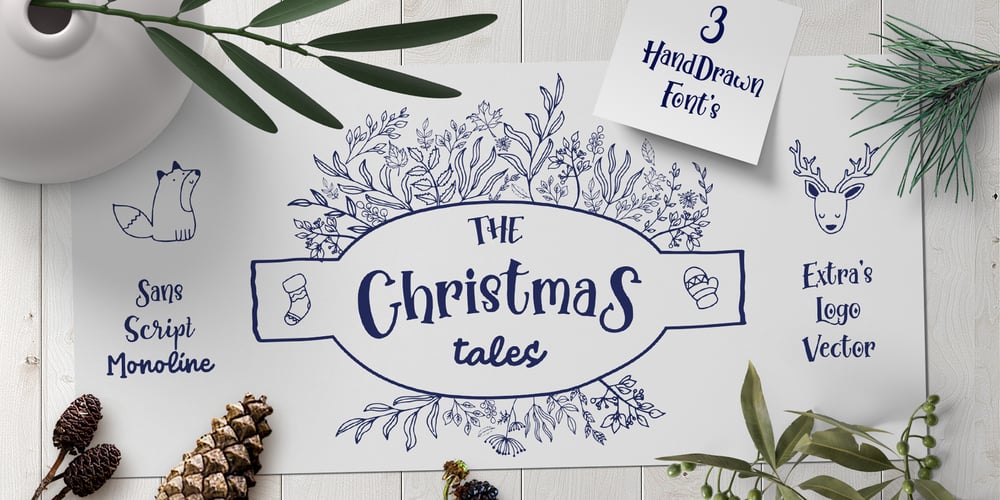
Winter Tales Font Family was designed by Muhammad Ardiansyah and published by Hart Foundry. Winter Tales contains 3 styles and family package options. Introducing Winter Tales Font PackWinter Tales is a new handwritten font pack from us, this font is really new and fresh. With four different font characters, you can play your imagination in designing. This font is very easy to use and really playful. New Monday perfect for logos, printed quotes, invitations, cards, product packaging and another project design.What Inside The Pack-Winter Tales Script-Winter Tales Monoline-Winter Tales SherifWinter Tales • This fonts have uppercase, lowercase, alternate And Support Multi language characters so you can play around with all of these fonts and create something funny and awesome.To use the alternate or the ligatures, you have to use the aplication who support Open Type featuresI really hope you enjoy using New Monday, please don’t hesitate to drop me a message if you have any question :)-Hart